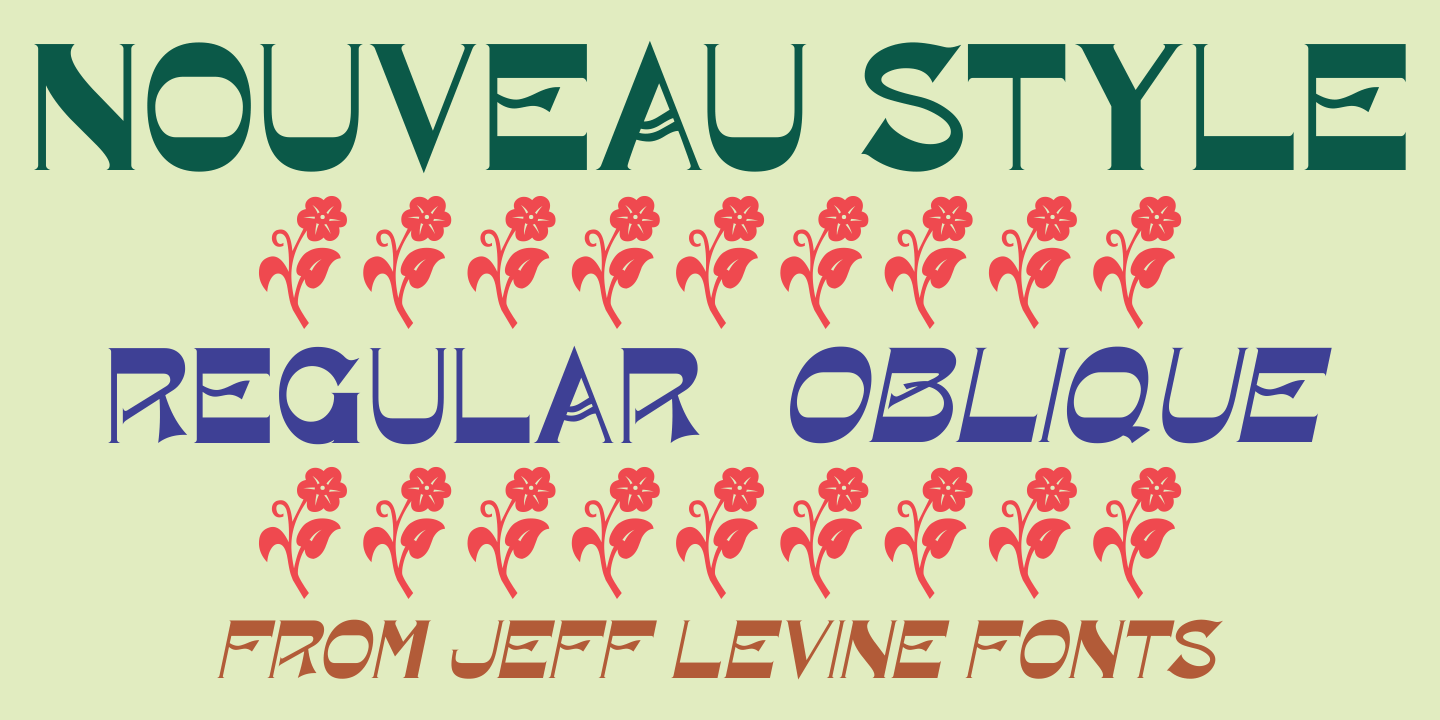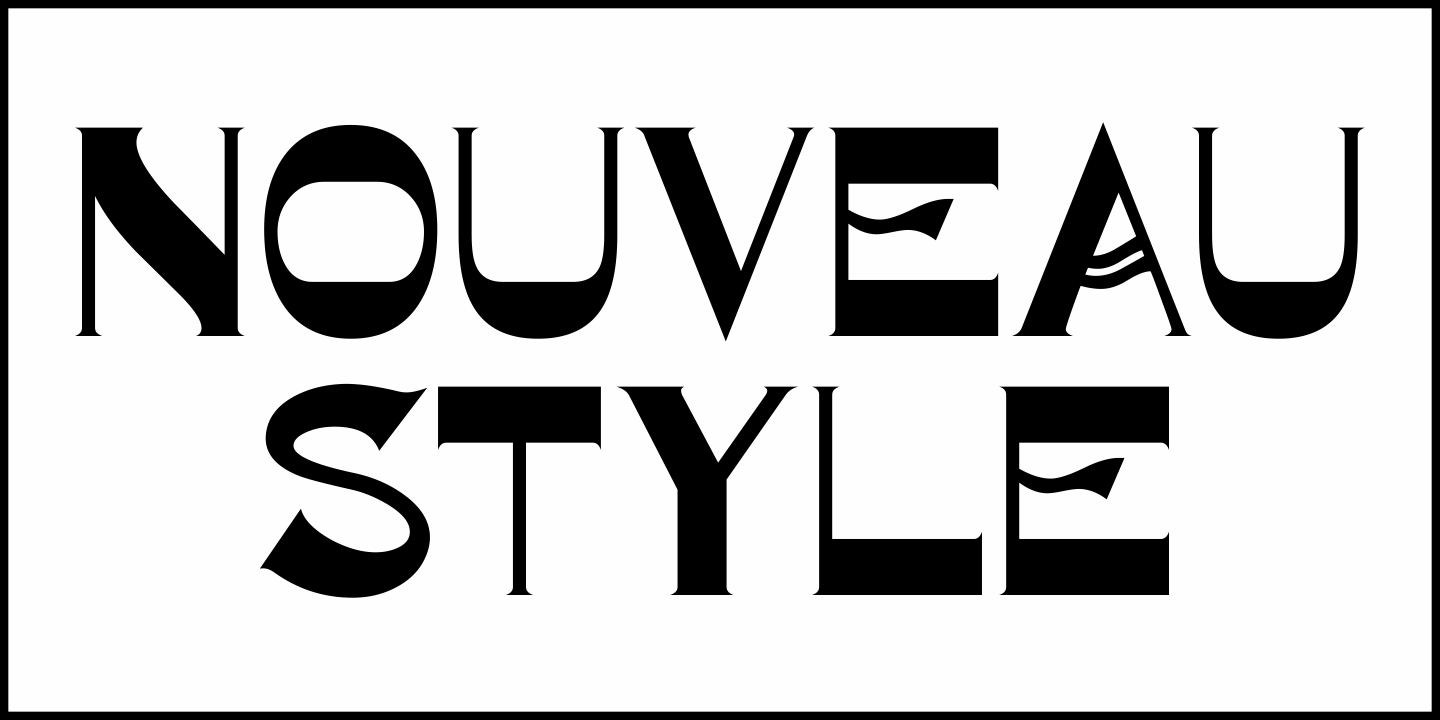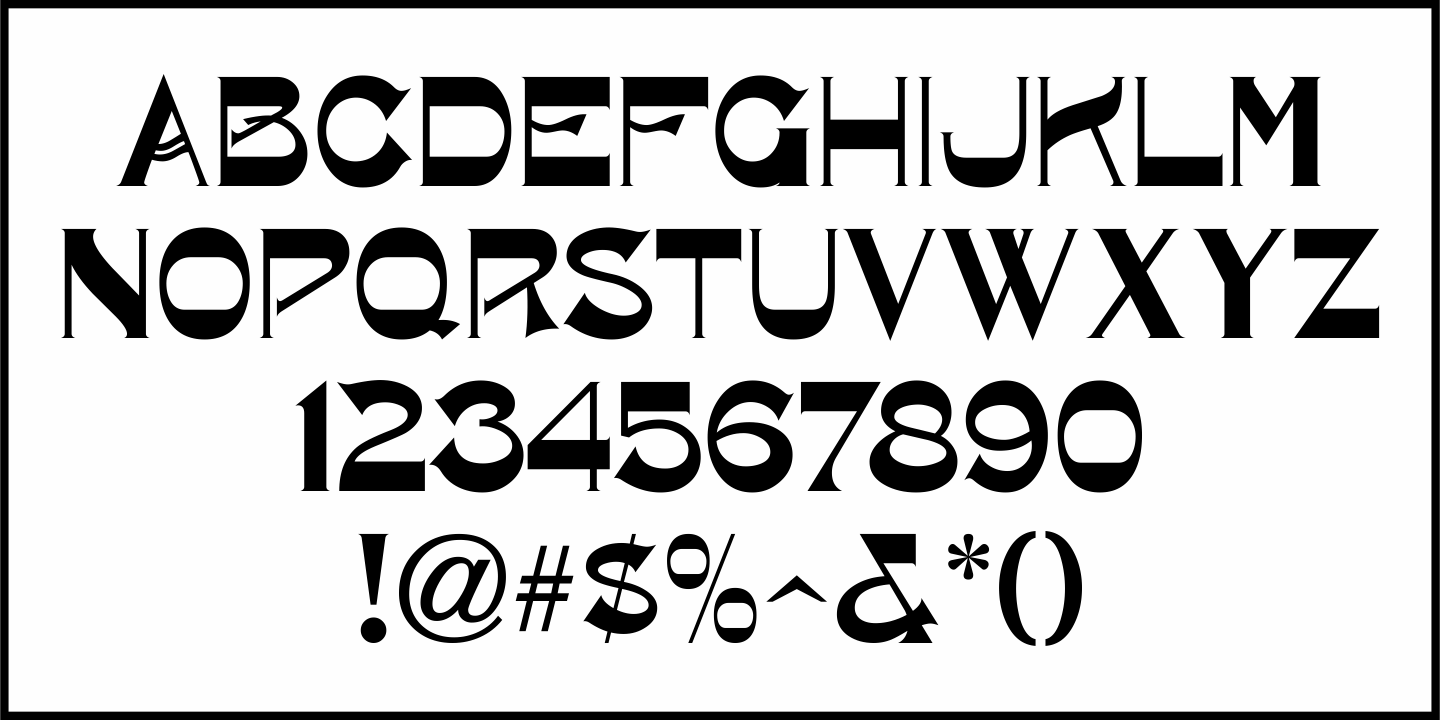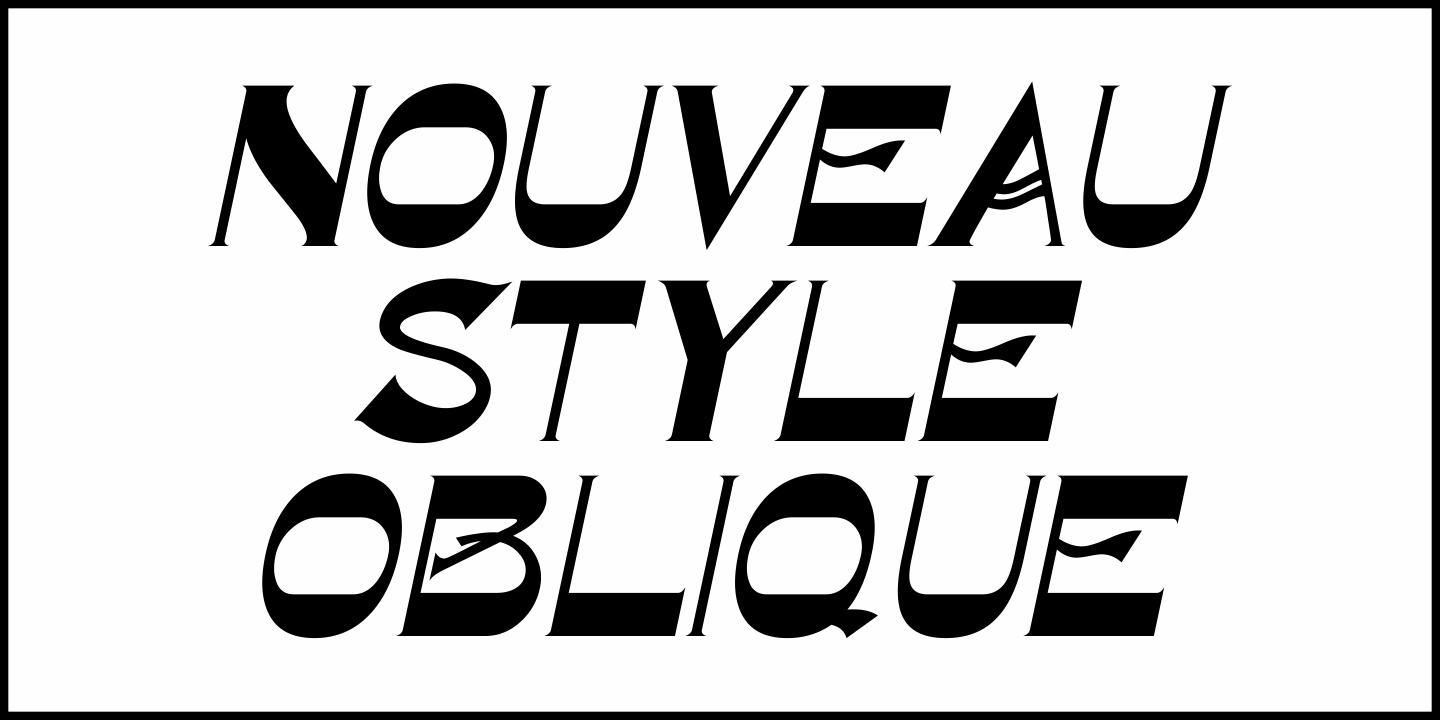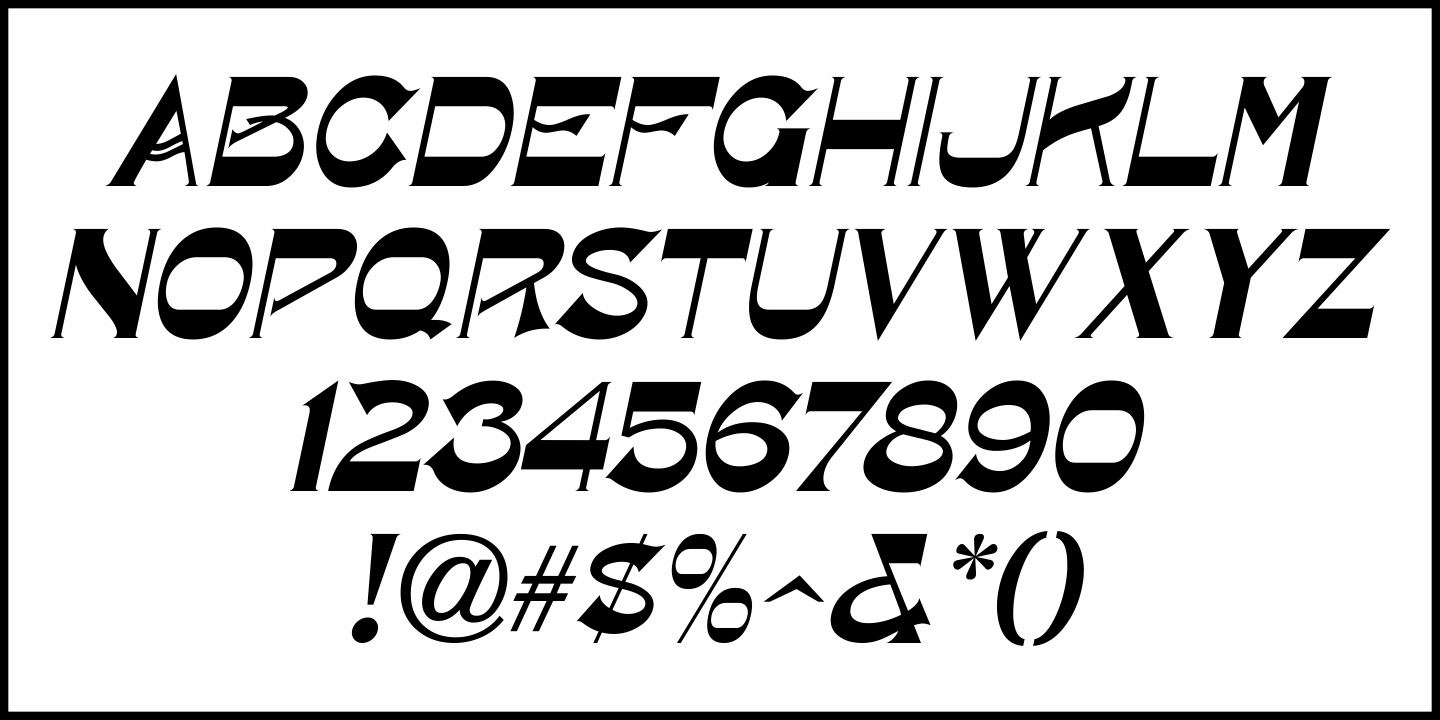
Nouveau Style
Scribner's Magazine was an illustrated periodical published from 1887 to 1939. The 1895 holiday issue 'Scribner's for Xmas” had the cover text hand lettered in an Art Nouveau style with spurred serifs.
This is now available digitally as Nouveau Style JNL, in both regular and oblique versions.